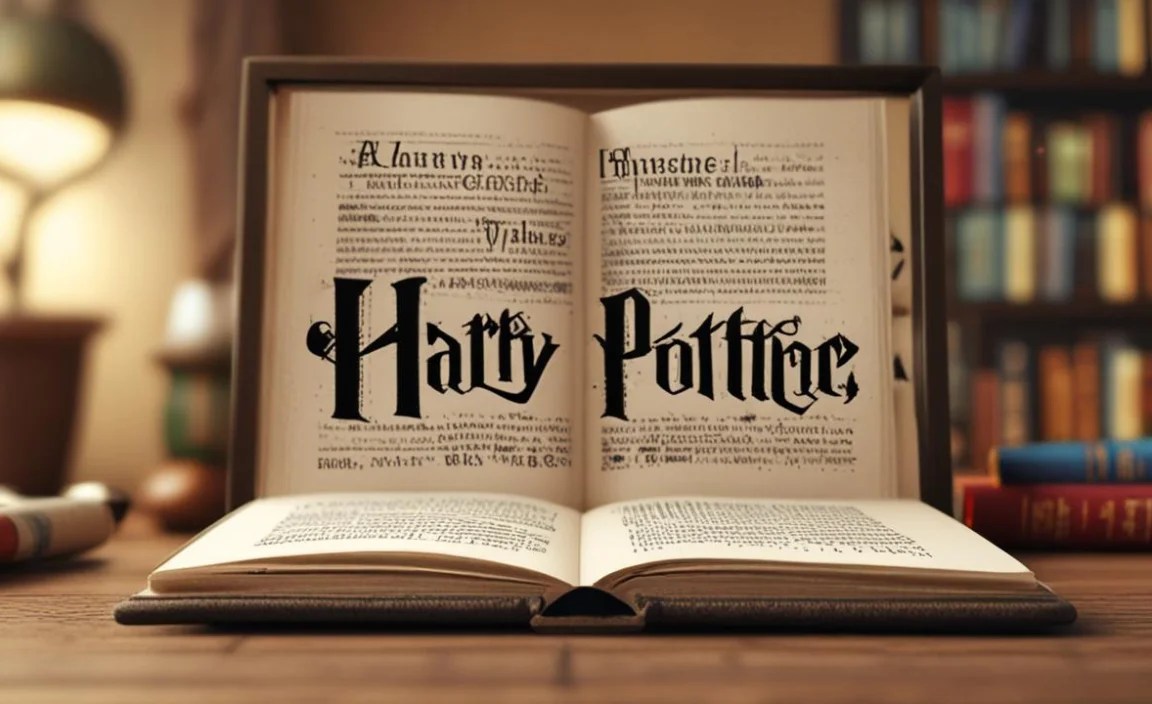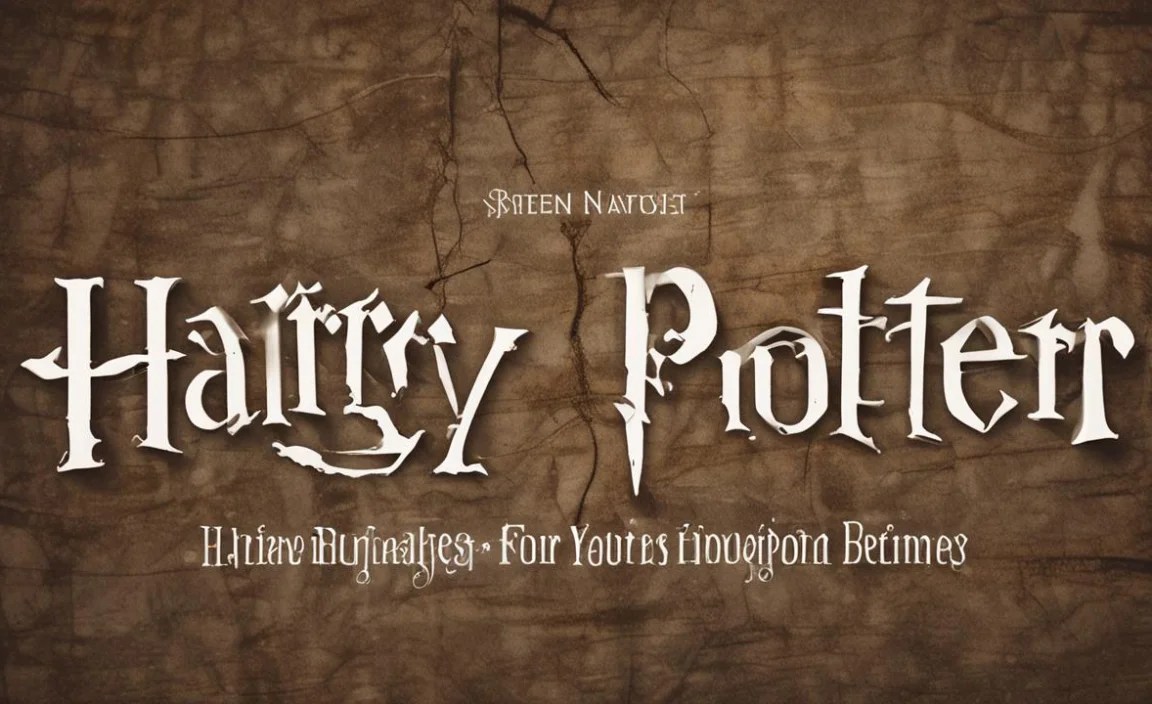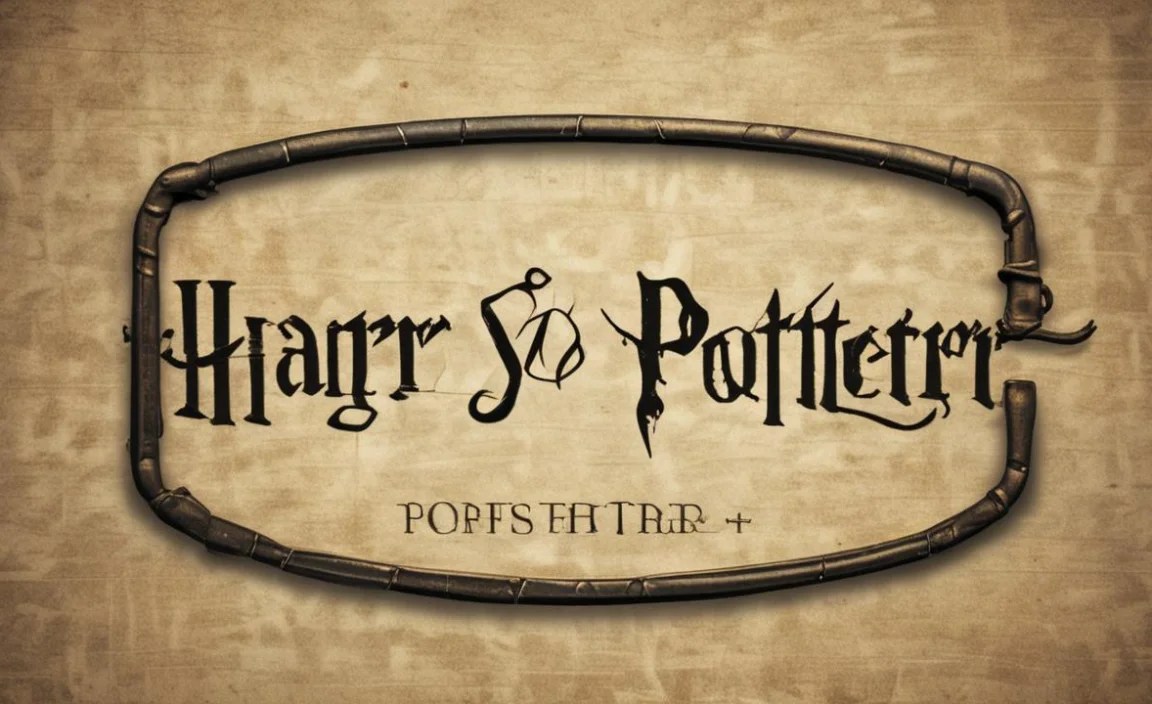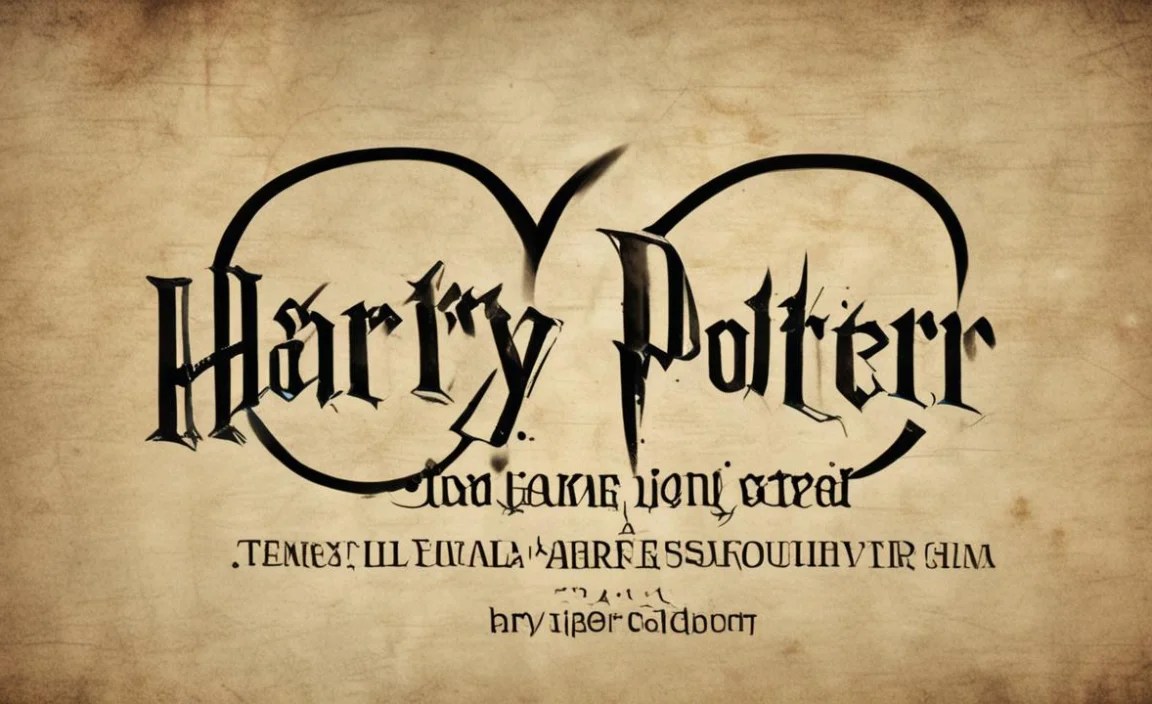
The Harry Potter Font, inspired by the iconic typography of the beloved Harry Potter series, captures the enchanting and whimsical essence of the Wizarding World.
Designed to mimic the fonts used in book titles, movie posters, and related merchandise, this typeface brings a touch of magic to personal and creative projects. Its distinctive style is perfect for evoking the charm and adventure of the magical realm.
Harry Potter Font Information
| Name | Harry Potter Font |
| Style | Display / Fantasy |
| Designer | Various |
| Type | Shape of a lightning bolt (Popular one) |
Harry Potter Font Family Includes
- Harry P
- Harry P Regular
- Hagrid Font
- Aquiline Two Font
- Booter Font
- Dumbledor Font
- Parry Hotter Font
- HP Poster Font
- Lumos Font
- Magical Me Font
- Parseltongue Font
- HP Dingbats Font
Where Harry Potter Font Is In Use
Harry Potter Font brings a magical touch to a variety of design applications. Using design software, you can enhance its fantasy elements with effects such as embossing, drop shadows, or gradients. Adjusting these effects can add depth and a spellbinding visual impact. Notable uses include:
- Book Covers,
- Game Covers,
- CD Covers,
- Movie Posters,
- Merchandise items,
- Fan Art,
- Themed parties,
- Personal Branding.
Harry Potter Font Alternative
- Parry Hotter
- Magical Me
- Lumos
- Wizard World
- Caslon Antique
- Hocus Pocus
- Alagard
- Blackadder ITC
- Merlin
- Muggle
1. What Are The Different Weights Available For The Harry Potter Font?
Depending on the specific typeface version you choose, Harry Potter Font typically comes in various styles and weights, including Regular and Bold versions.
2. How Does The Harry Potter Font Compare To Other Similar Fonts?
Harry Potter Font features a distinctive style with a magical flair, setting it apart from other fantasy fonts like “Magic School” or “Wizards” due to its specific ties to the Harry Potter series.
3. What Are The Most Popular Applications For The Harry Potter Font?
Popular uses include book covers, movie posters, themed merchandise, fan art, event invitations, and personal branding with a magical theme.
4. What Are The Features Of The Harry Potter Font?
Features include whimsical letterforms, special ligatures, and decorative elements reminiscent of the magical world of Harry Potter.
5. What Languages Does The Harry Potter Font Support?
It generally supports Basic Latin characters, making it suitable for a wide range of projects in English and other languages using the Latin alphabet.
7. Why Is The Harry Potter Font Popular In Design?
The font’s magical and whimsical design, combined with its association with the Harry Potter series, makes it perfect for creating enchanting and immersive projects that capture the spirit of the Wizarding World.